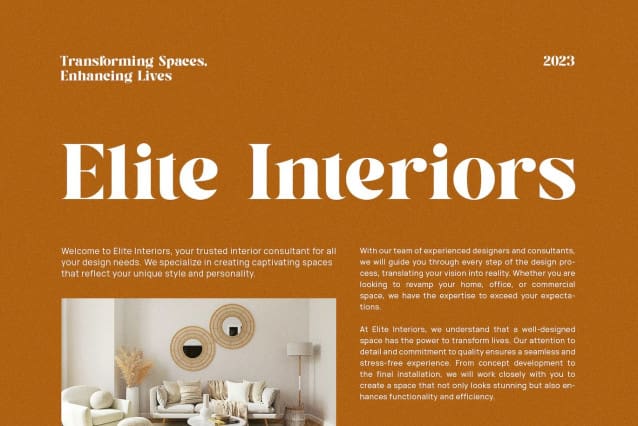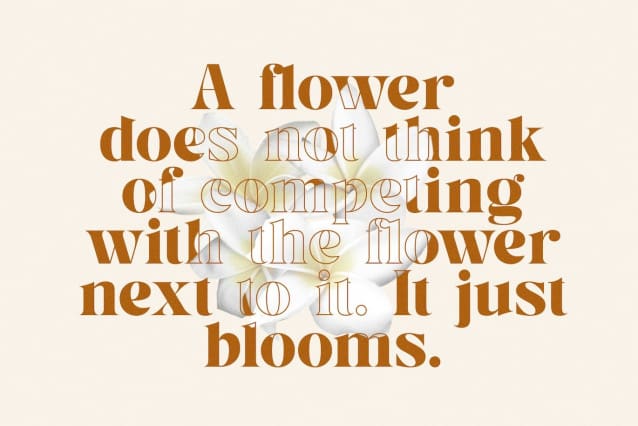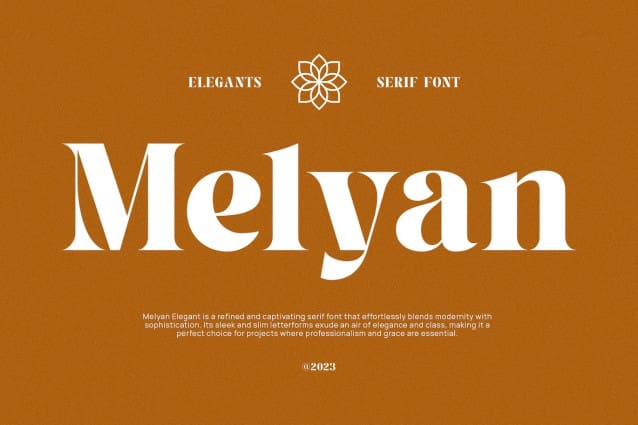
Melyan Font
Melyan Font, modern serif font with elegant style this is perfect for branding, logos, invitation, magazines, product packaging and more.